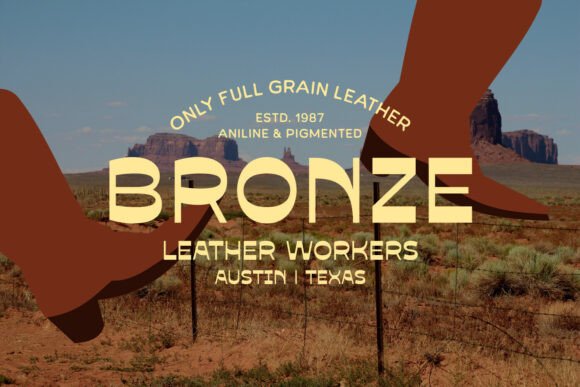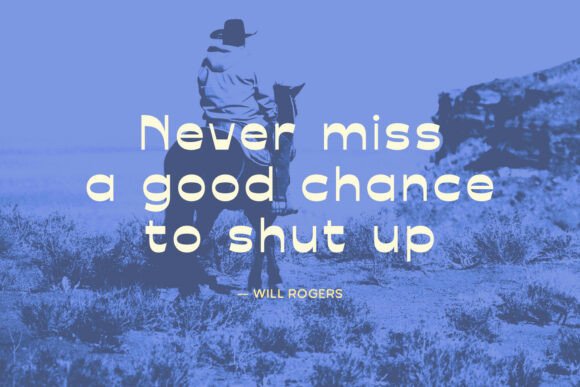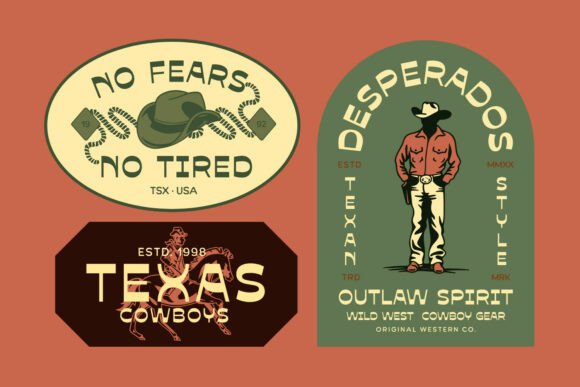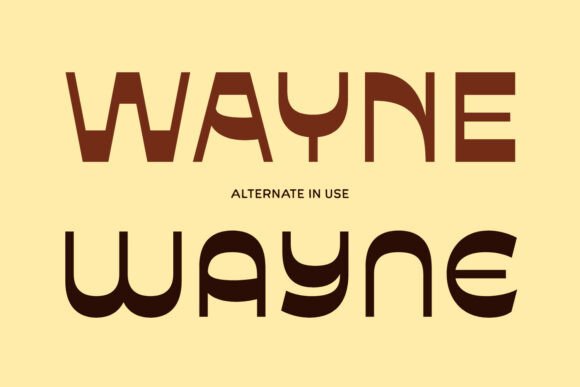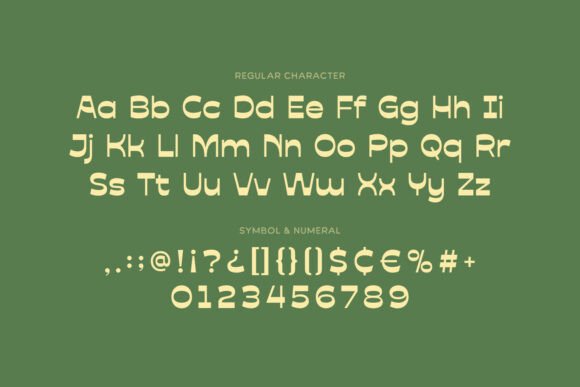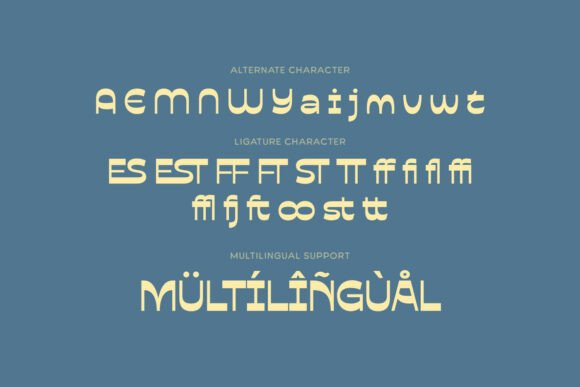
Introduction to Reyspiro Font Font
Fonts play a crucial role in design, and the Reyspiro Font font is a typeface that brings both character and versatility to any project. Whether you’re working on a branding project, a website, or a print design, the Reyspiro Font font offers a unique style that can elevate your work.
Reyspiro: Wild Retro Western Display Capture the rugged spirit of the frontier with Reyspiro, a wild retro western display font.
This font features bold, playful characters with a vintage cowboy aesthetic, making it perfect for themed events, brewery branding, and retro apparel It includes alternates and ligatures to give your western designs an authentic, hand-stamped feel.
Why Choose Reyspiro Font Font?
The Reyspiro Font font is more than just a typeface – it’s a design tool that helps you communicate your message with style and clarity. Its unique character set and versatile design make it suitable for a wide range of applications, from elegant invitations to bold headlines.
With its carefully crafted letterforms and balanced proportions, the Reyspiro Font font ensures readability and visual appeal across all mediums.
What makes Reyspiro Font font special?
The Reyspiro Font font stands out with its unique design, exceptional readability, and versatility across various design applications.